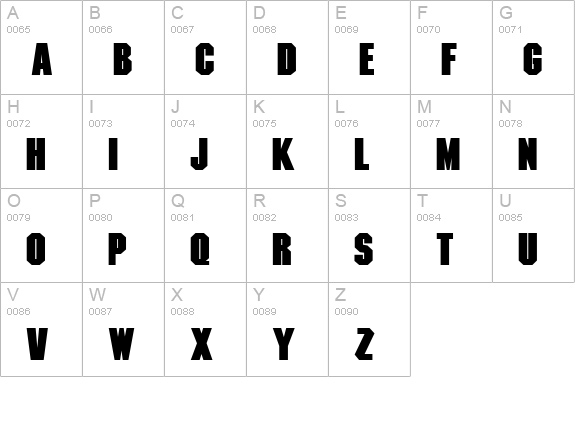
Machine Bold is a strong, high-contrast variant in the Machine typeface family \xE2\x80\x94 well suited to headlines, attention-grabbing titles, and strong calls-to-action.
Introducing Machine Bold, a modern and versatile font that exudes confidence and strength. With its bold and commanding presence, this font is perfect for making a bold statement in any design project. Machine Bold features clean lines and robust letterforms that are sure to catch the eye and leave a lasting impression. Its sleek and contemporary style makes it ideal for a wide range of applications, from headlines and logos to posters and signage. But what sets Machine Bold apart from other fonts is that it is not only visually stunning, but also freely available to download at FontsMarket.com. Yes, you read that right – this exceptional font can be yours completely free of charge, allowing you to elevate your designs without breaking the bank. Whether you're a seasoned designer or just starting out, Machine Bold is a must-have addition to your font collection. Its versatility and boldness will elevate your designs to new heights, while its availability as a free download ensures that anyone can enjoy its benefits. So don't wait any longer – head over to FontsMarket.com today and get your hands on Machine Bold. Unleash your creativity and make a statement with this powerful and stylish font.